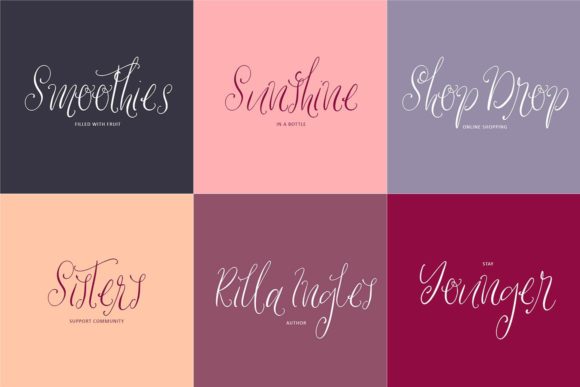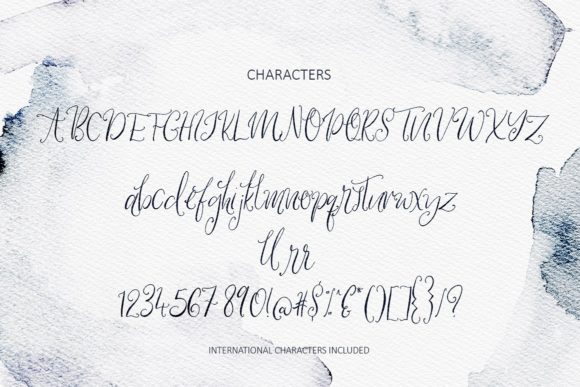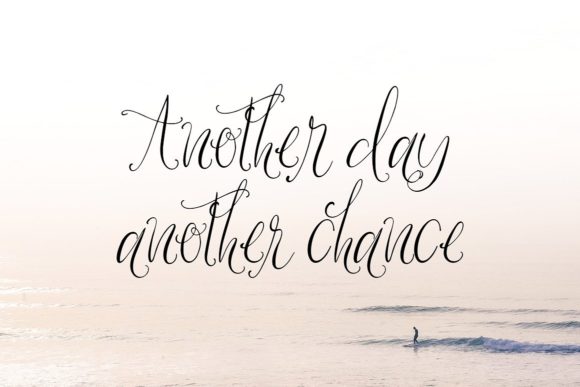
Wallower Font
About Wallower Font
The Wallower is a gorgeous scrolling script with loads of character and charm.
Use it for your wedding, blog, social media, quotes, prints, birthdays, cards, book covers and much more.